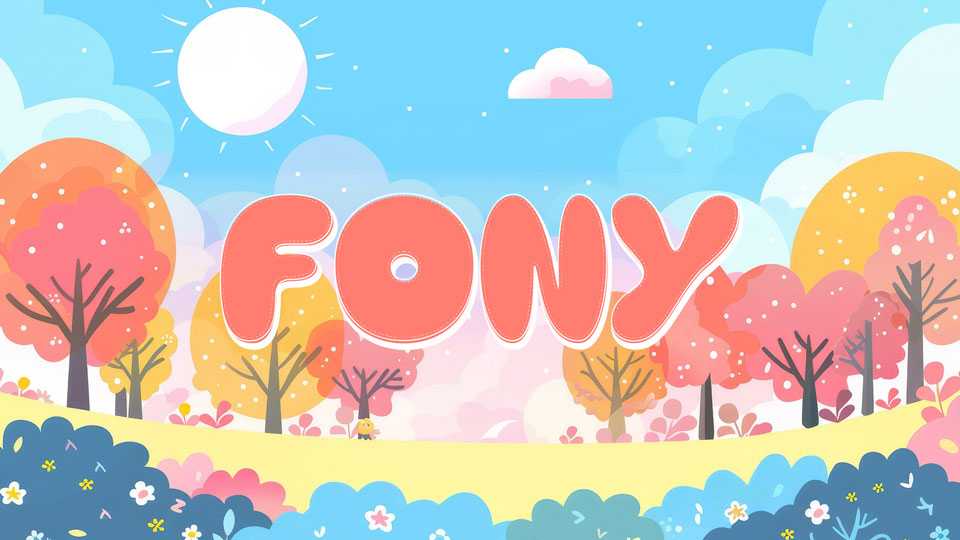
Download Fony font, a delightful, fancy typeface that brings a touch of playful elegance to your projects. With its charming cartoon-inspired design and rounded edges, Fony adds a whimsical flair to any text.